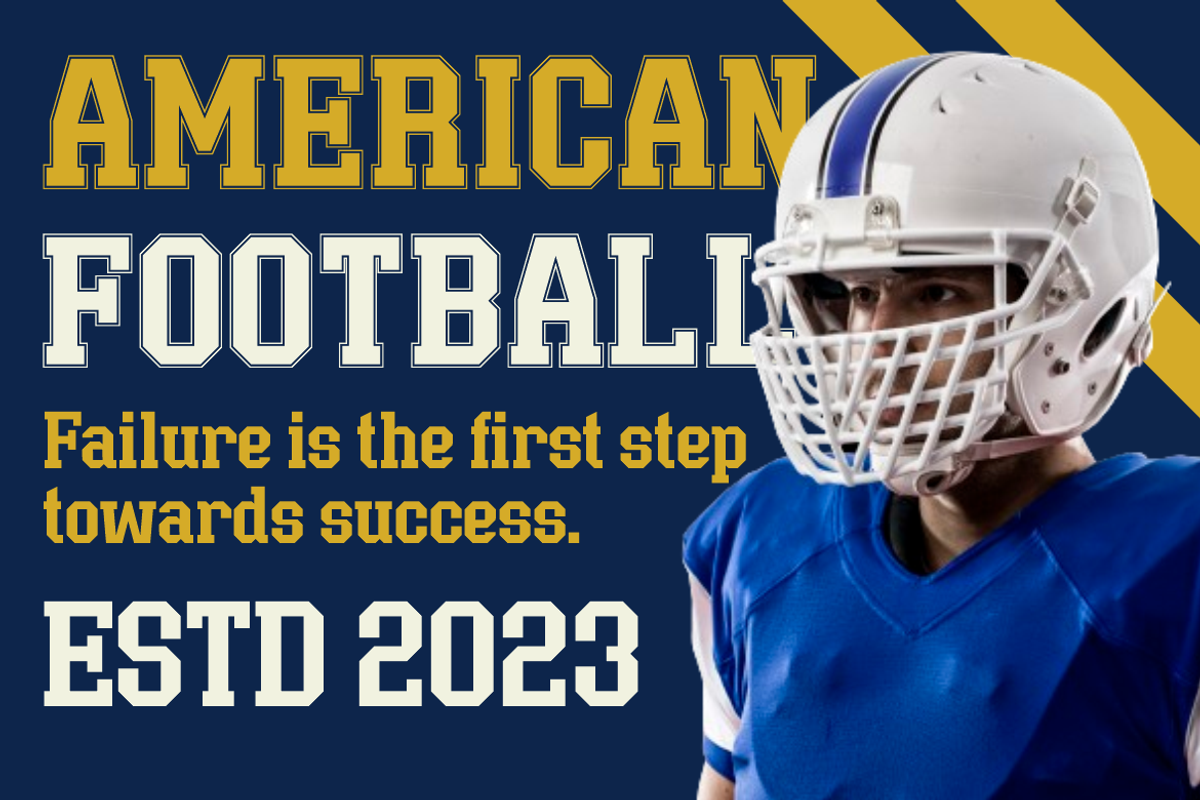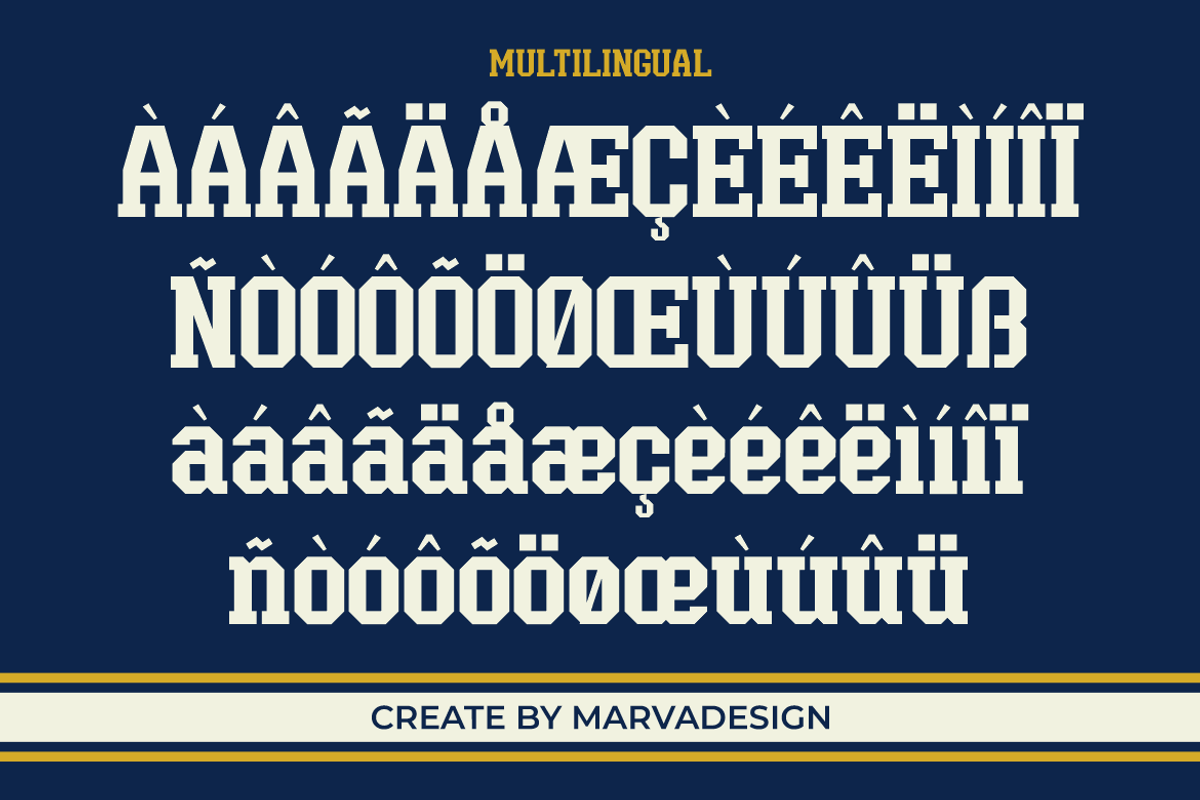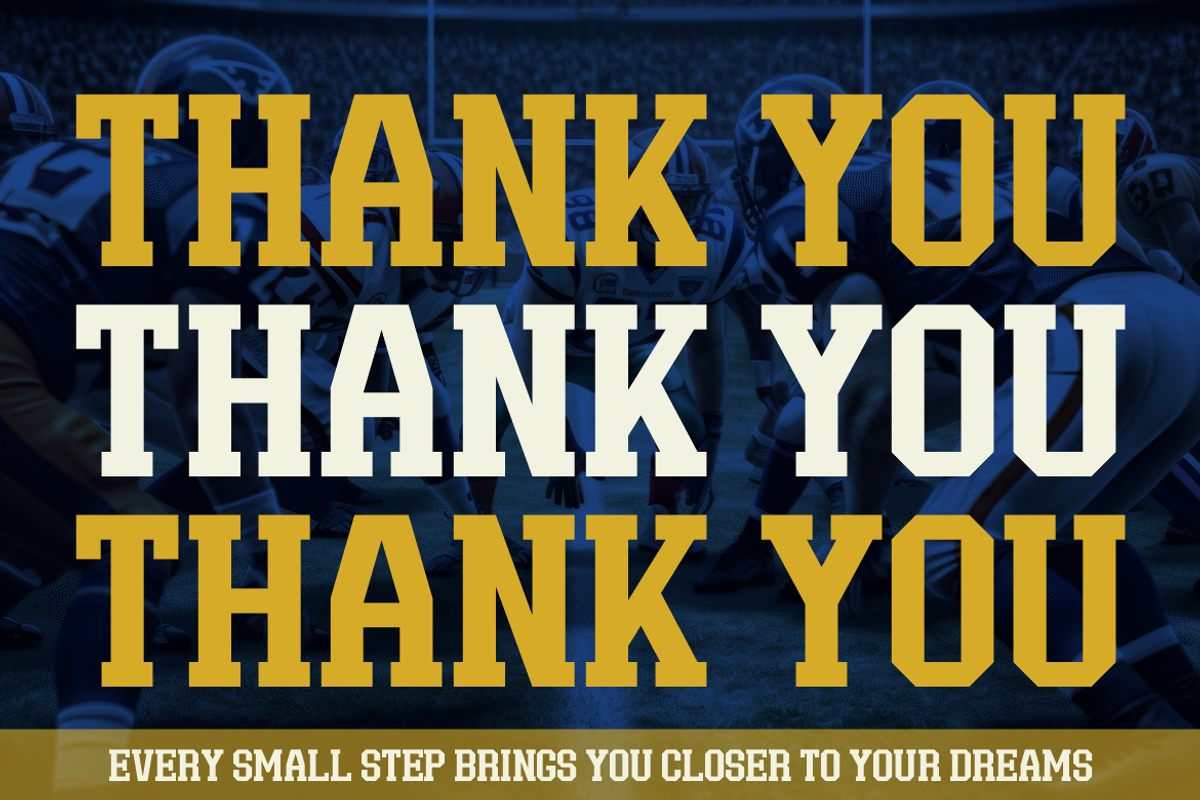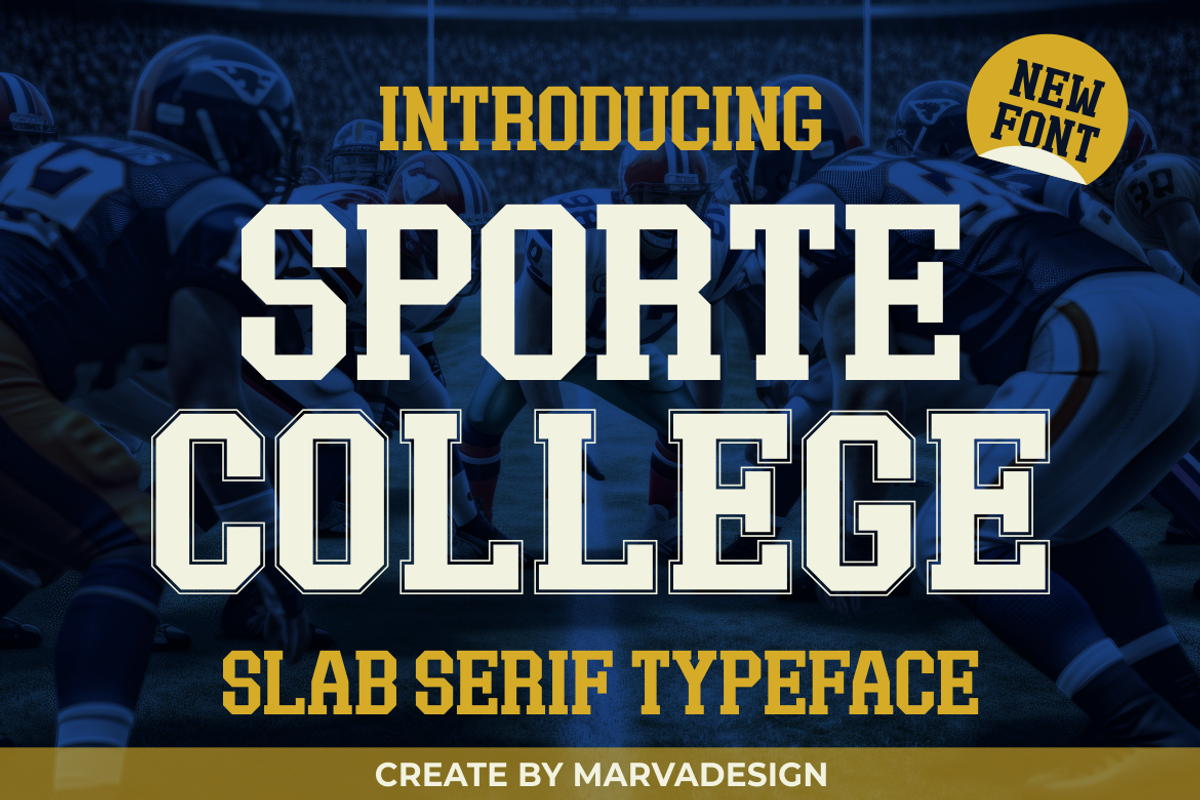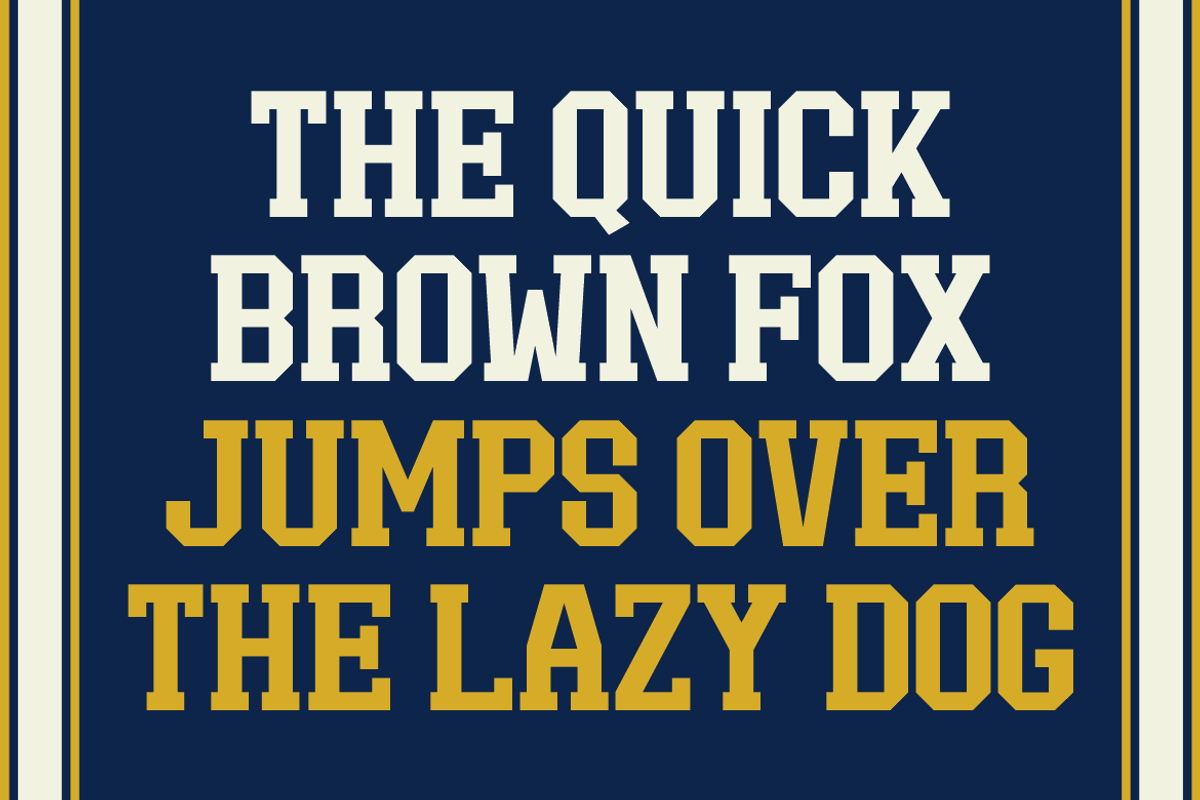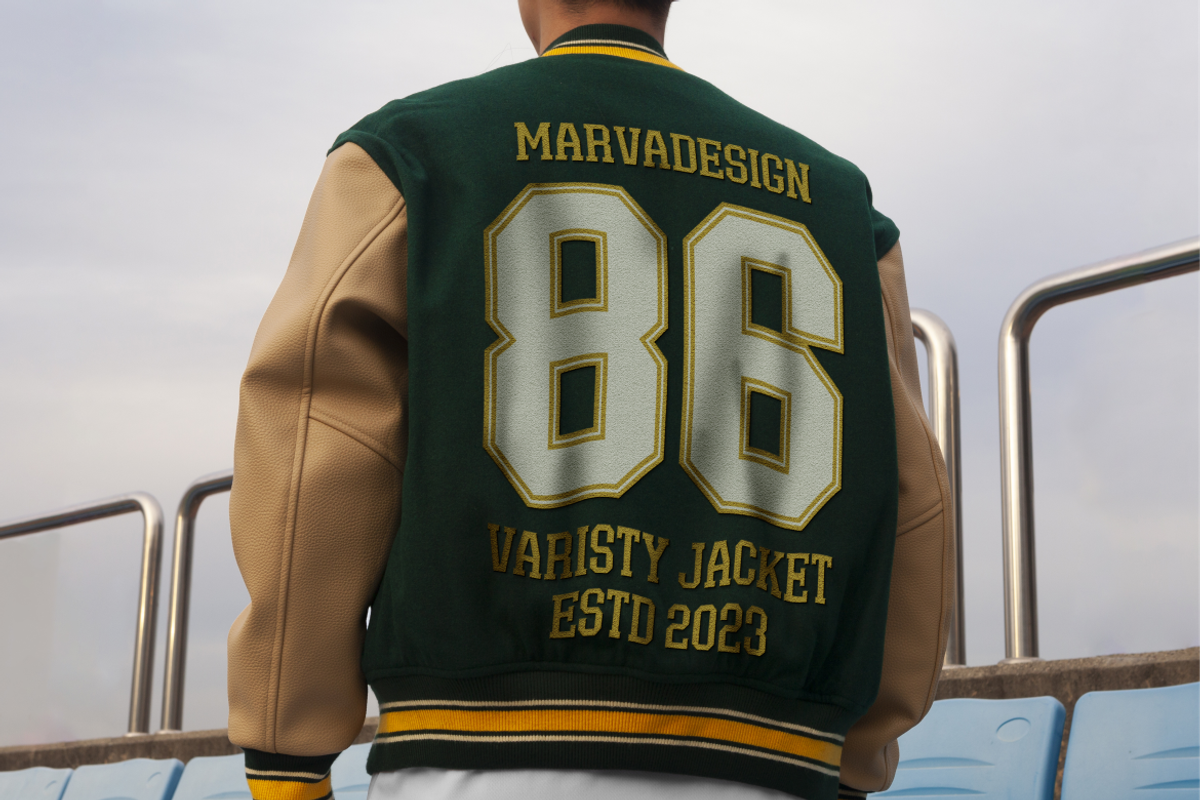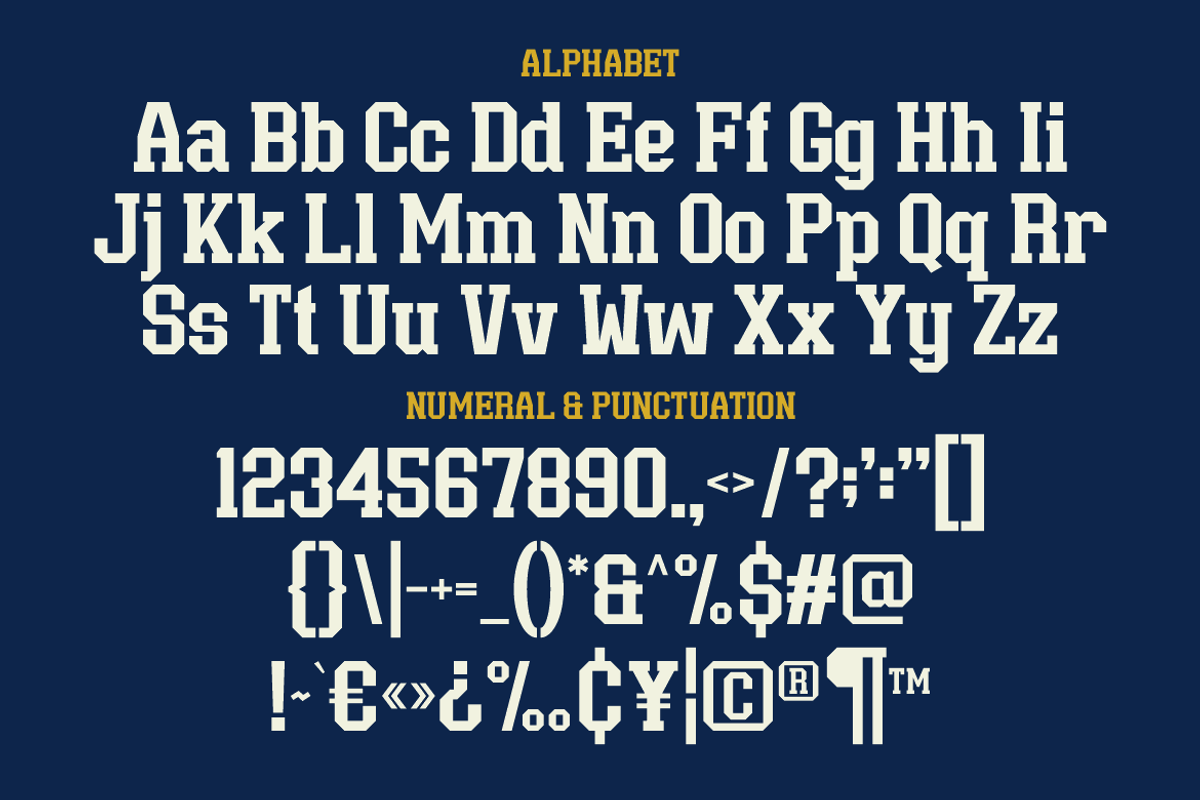
Sporte College - A Classic Slab
Introducing our new product Sporte College - A Classic Slab Font Font is a bold and authentic display font. The font is suitable for any branding project like logo, Template Design, Product and many more. outstanding in a wide range of contexts.